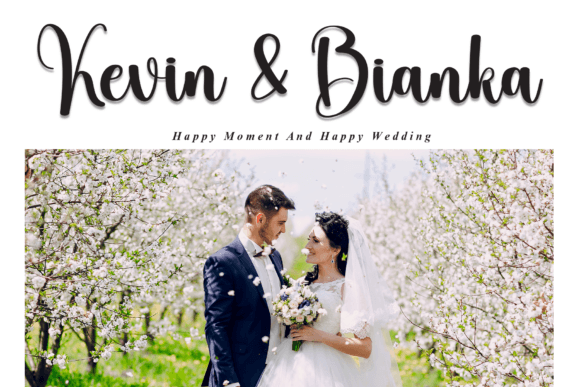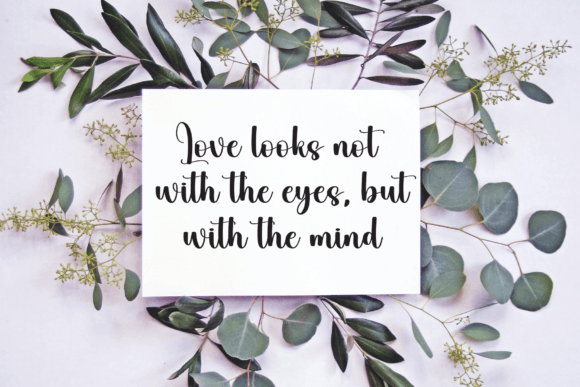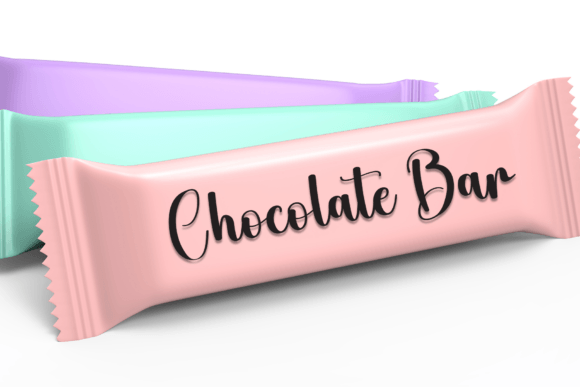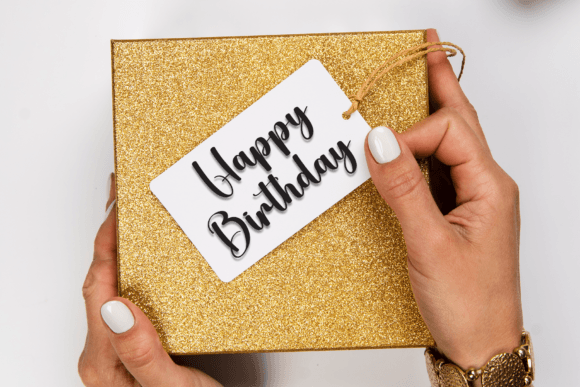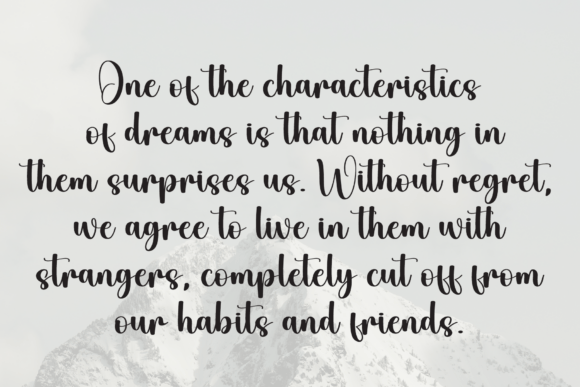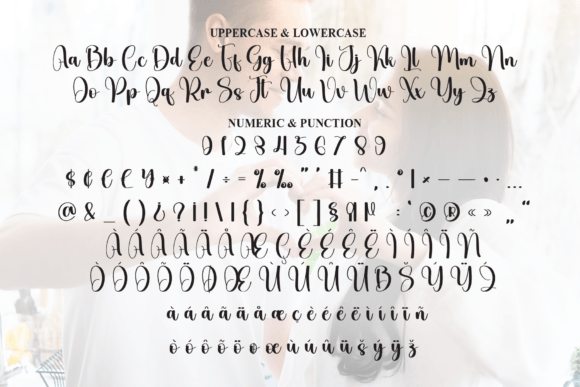
Affection Font: Elevate Your Designs with Elegance and Charm
Are you looking for a font that can add a touch of sophistication and warmth to your designs? Look no further than Affection Font, a stylish handwritten script font that combines elegance with a modern flair. In this article, we’ll dive into the features and benefits of Affection Font, and explore how it can elevate your branding, invitations, social media, and more.
The Characteristics of Affection Font
Affection Font is a beautifully crafted handwritten script font that boasts flowing strokes and organic curves. Its unique design brings a sense of warmth and sophistication to any project, making it perfect for designers and crafters who want to add a personal touch to their work. The font’s elegant and refined appearance makes it ideal for a wide range of applications, from luxury branding to wedding invitations.
Key Features of Affection Font
• Handwritten Script Font: Affection Font is a handwritten script font that mimics the natural flow of handwriting, giving it a personal and organic feel.
• Elegant and Refined: The font’s elegant and refined design makes it perfect for high-end branding, invitations, and social media graphics.
• Flowing Strokes and Organic Curves: Affection Font’s flowing strokes and organic curves add a touch of warmth and sophistication to any project.
• Modern Flair: The font’s modern flair makes it perfect for designers and crafters who want to create contemporary and stylish designs.
Use Cases for Affection Font
Affection Font is a versatile typeface that can be used in a wide range of applications, including:
• Branding: Use Affection Font to create elegant and sophisticated brand identities that reflect your company’s values and personality.
• Invitations: Add a touch of luxury and refinement to your wedding invitations, birthday invitations, and other special occasion invites.
• Social Media: Use Affection Font to create eye-catching social media graphics that showcase your brand’s personality and style.
• Packaging: Add a personal touch to your product packaging with Affection Font, making it stand out on store shelves.
Benefits of Using Affection Font
By using Affection Font in your designs, you can:
• Add a Personal Touch: Affection Font’s handwritten script design adds a personal touch to your designs, making them more relatable and engaging.
• Elevate Your Brand: The font’s elegant and refined design can help elevate your brand’s image and reputation.
• Stand Out: Affection Font’s unique design makes it stand out from other fonts, ensuring your designs get noticed.
Tips for Using Affection Font
To get the most out of Affection Font, follow these tips:
• Use it Sparingly: Use Affection Font sparingly to add emphasis and create visual interest in your designs.
• Pair it with Other Fonts: Pair Affection Font with other fonts to create a unique and visually appealing typography combination.
• Experiment with Colors: Experiment with different colors and textures to add depth and interest to your designs.
Affection Font is a stylish and elegant handwritten script font that can add a touch of sophistication and warmth to any project. Its unique design and versatility make it perfect for designers and crafters who want to create beautiful and effective designs. Whether you’re looking to elevate your branding, create stunning invitations, or add a personal touch to your social media graphics, Affection Font is the perfect choice.